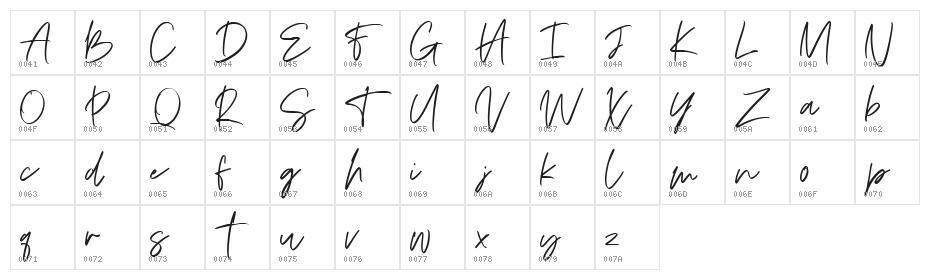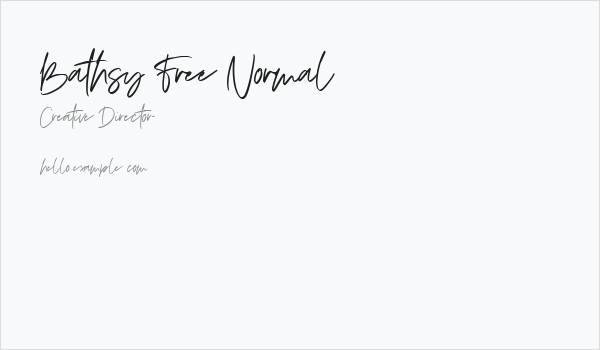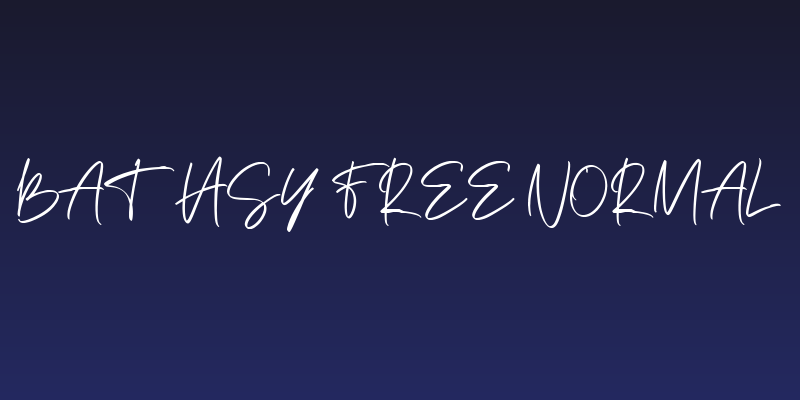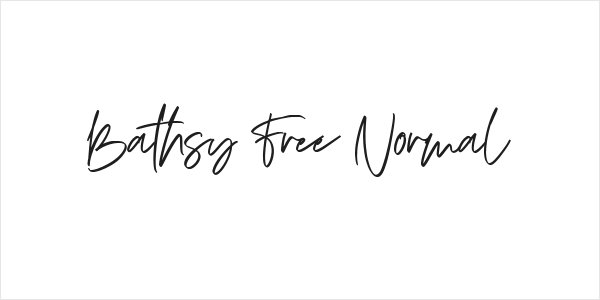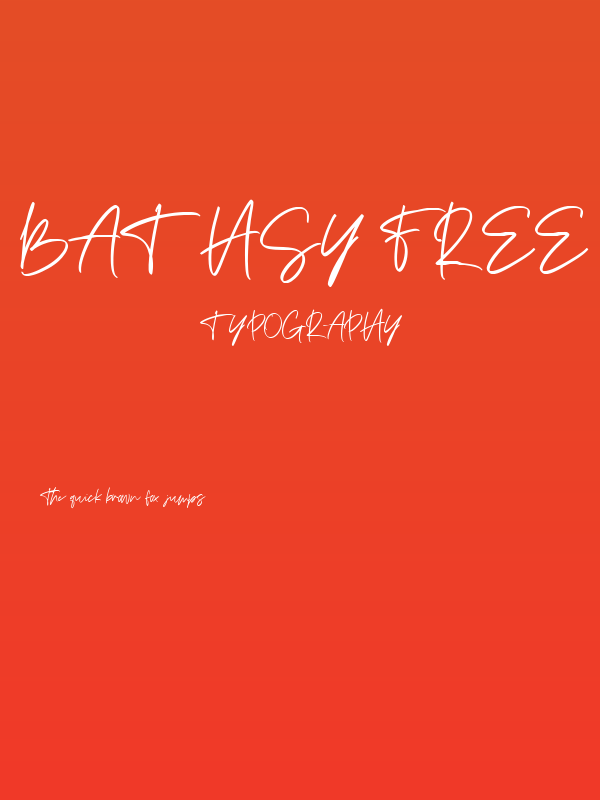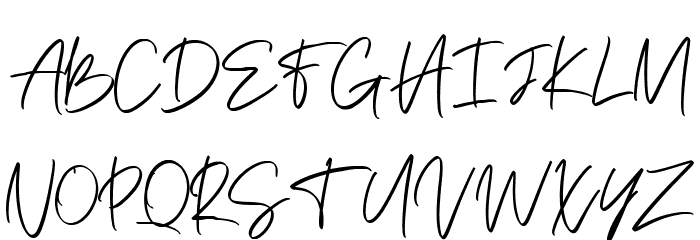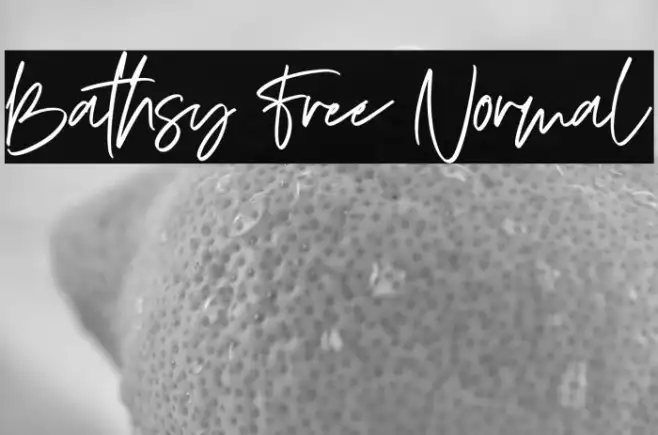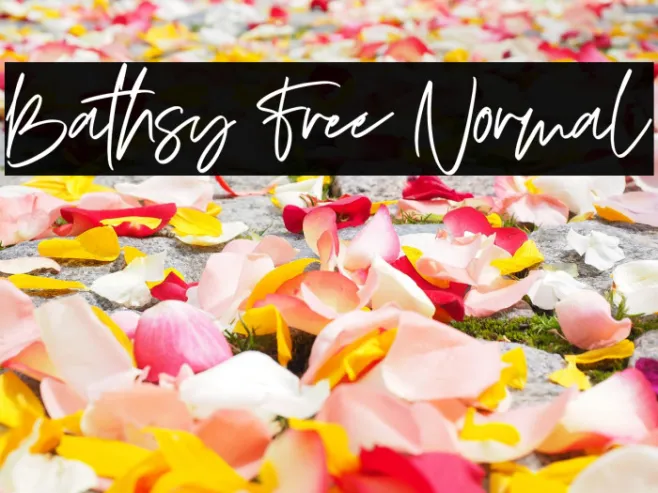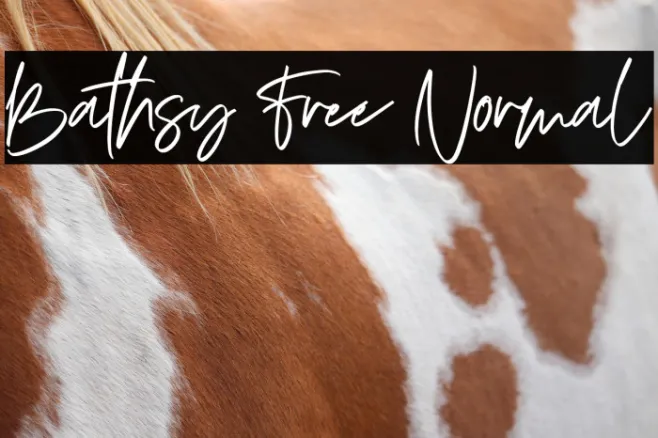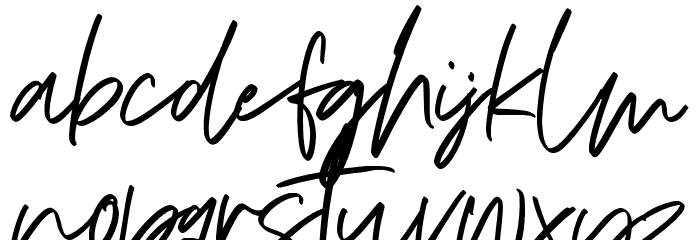
Bathsy Free Normal Font
Bathsy Free Normal Description
This font features a dynamic and expressive handwritten style, characterized by its fluid and spontaneous strokes. The uppercase and lowercase letters exhibit a natural flow, with varying stroke widths that add a sense of movement and energy. The characters are slightly slanted, enhancing the casual and informal appearance. The font maintains a consistent baseline, while the ascenders and descenders extend gracefully, adding to its artistic flair. The numbers and special characters are crafted with the same attention to detail, ensuring a cohesive look across all elements. This font is ideal for projects that require a personal touch, such as invitations, greeting cards, or branding materials that aim to convey creativity and warmth.